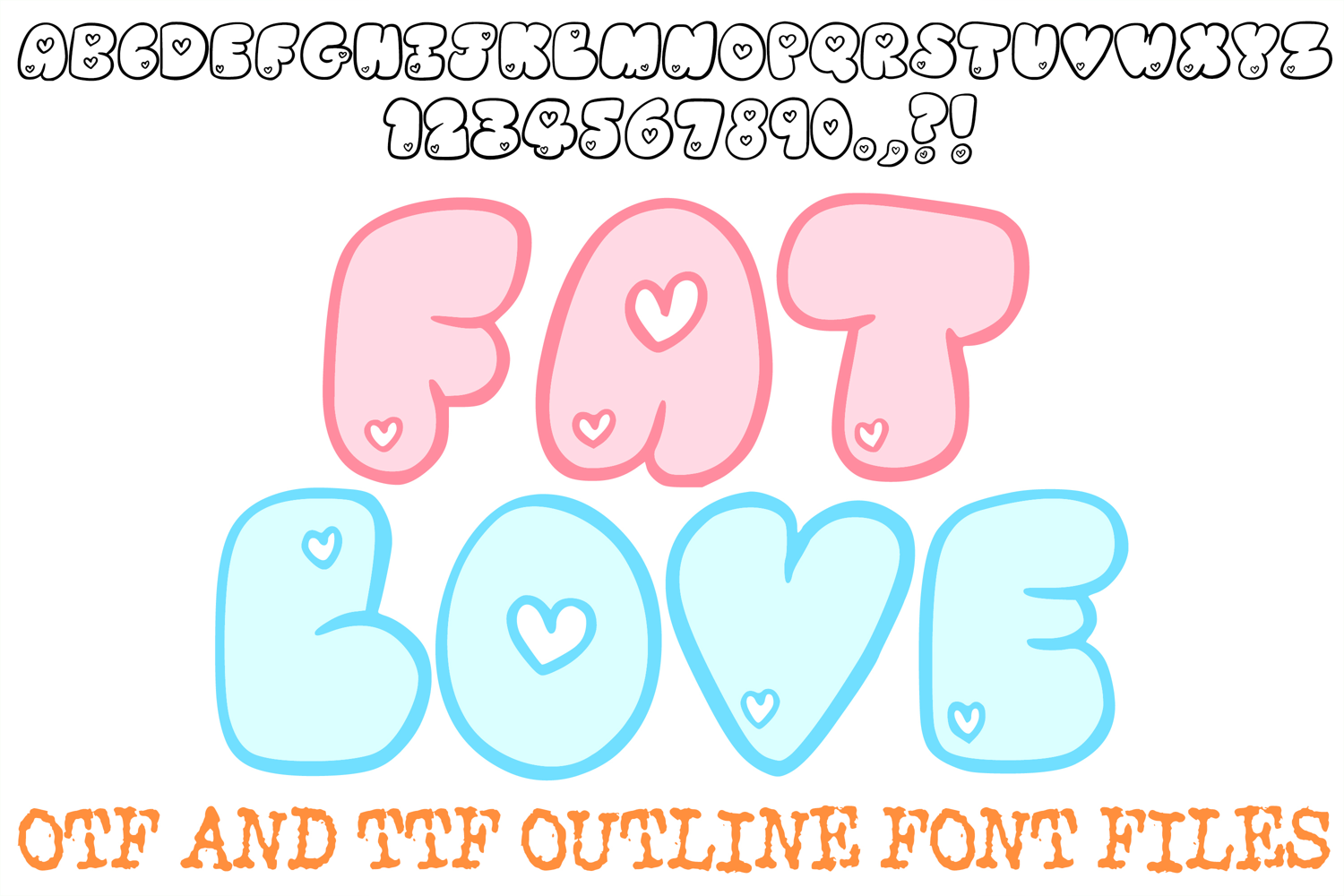
Fat Love Lettering Font Cute Heart ABC OTF Type
The Fat Love Bubble Font is a playful, hand-drawn display typeface designed to bring a sense of joy and whimsy to your creative projects. Featuring chunky, rounded letterforms accented with adorable heart cutouts, this font is a must-have for designers working on Valentine’s Day cards, nursery wall art, social media branding, and custom apparel.
Meticulously crafted with a clean, bold outline style, "Fat Love" is provided in both OTF and TTF formats, ensuring seamless compatibility across professional design software and crafting tools. Whether you are creating eye-catching headers for a lifestyle blog or vibrant heat-transfer vinyl designs for children's clothing, this font's high-readability and sweet aesthetic make every word pop with personality.
Chunky Bubble Aesthetic: The thick, pillowy letterforms offer a modern, high-impact look that is perfect for focal point titles and bold messaging.
Integrated Heart Accents: Each character features charming heart details, eliminating the need for extra clip art and adding instant romantic flair.
Optimized for Crafting: The clean, smooth outlines are specifically designed for easy weeding with cutting machines like Cricut and Silhouette.